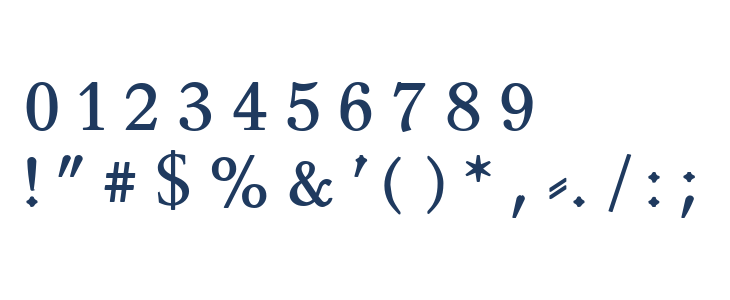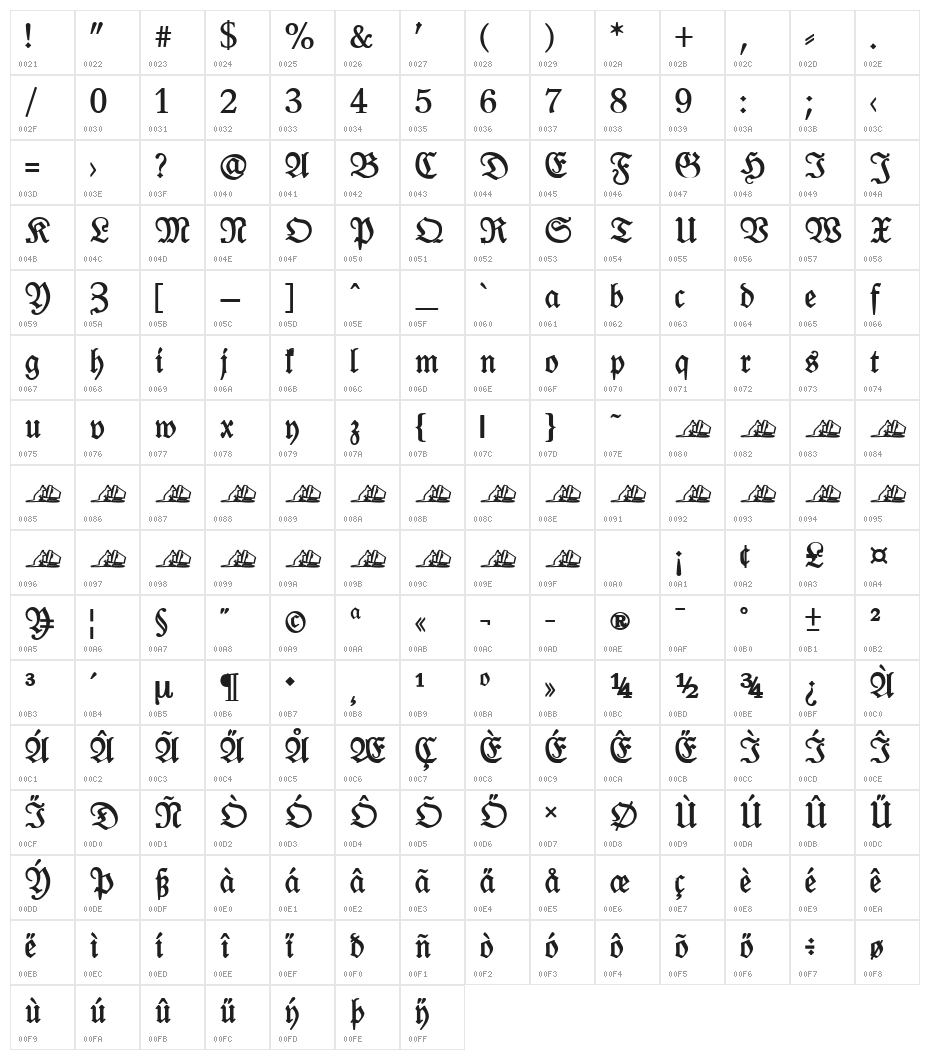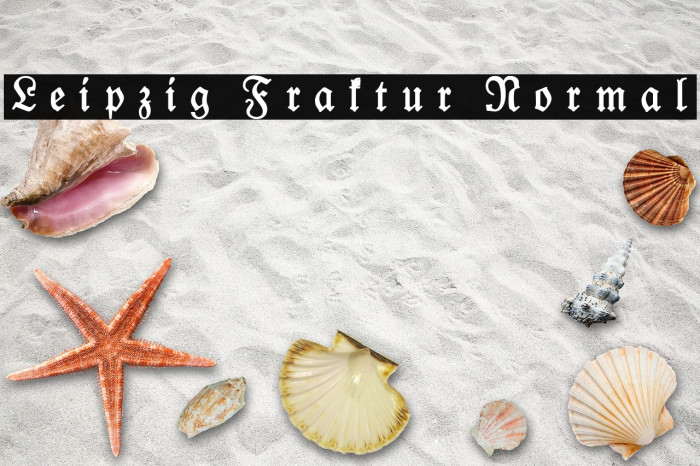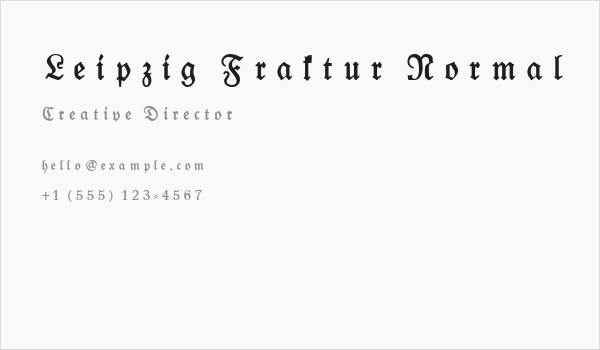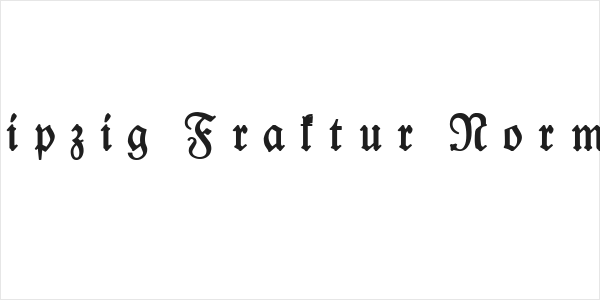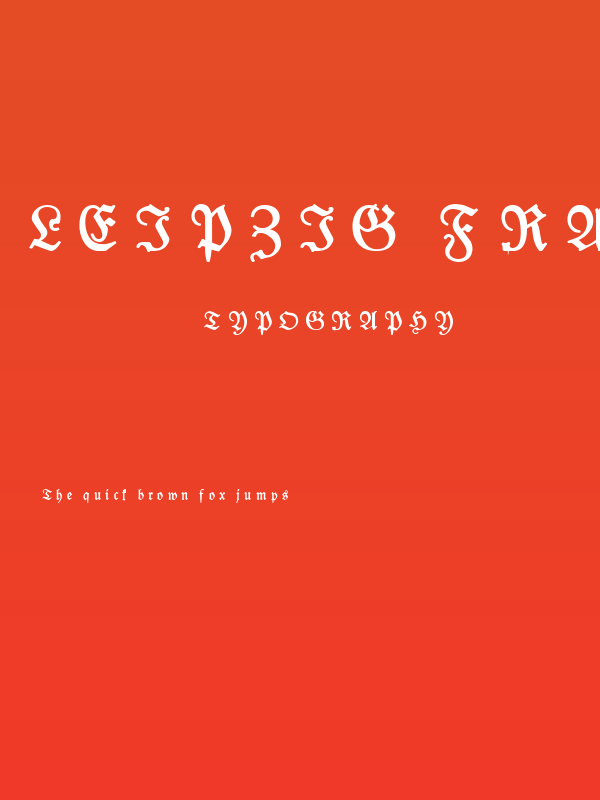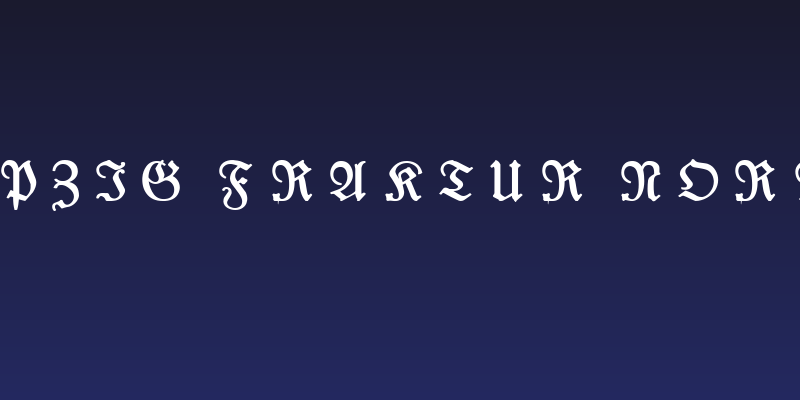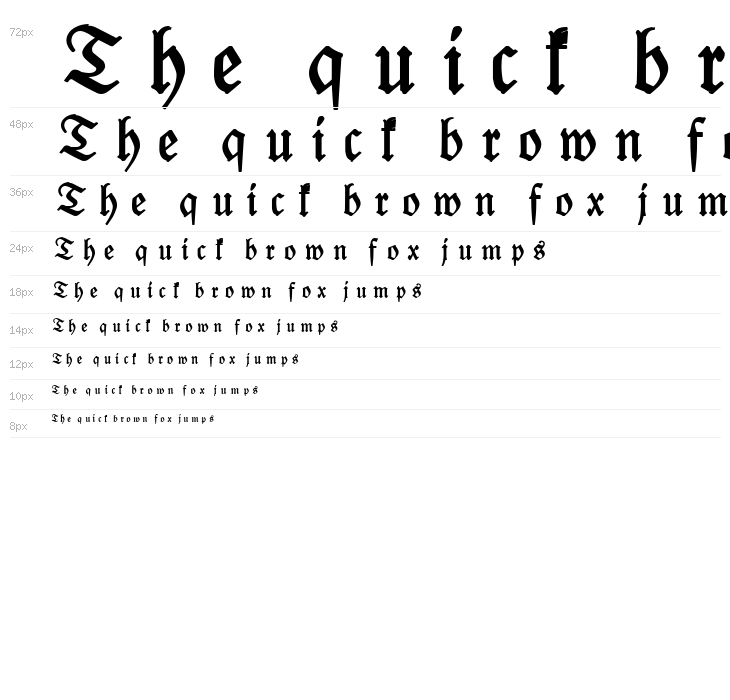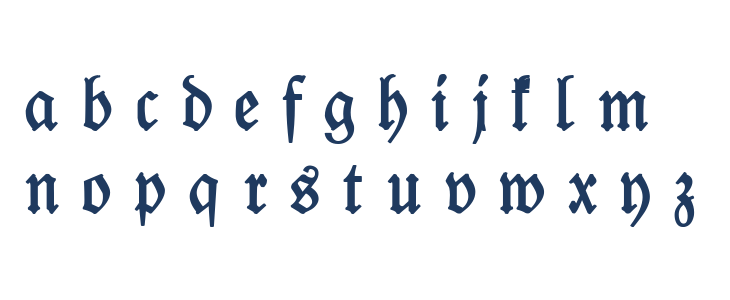
Leipzig Fraktur Normal Font
Leipzig Fraktur Normal Description
This font exudes a classic and historical charm, characterized by its intricate and ornate design. The uppercase letters feature elaborate flourishes and sharp angles, reminiscent of traditional Gothic script. The lowercase letters maintain a similar style, with a consistent stroke width that adds to the font's bold appearance. The numerals are clear and legible, while the special characters are designed to match the overall aesthetic, making them suitable for decorative purposes. The font's unique style makes it ideal for projects that require a touch of elegance and tradition.
Overall StyleVintage
Use CaseHeadlines, Logos, Decorative text
Proposed ProjectsIdeal for historical documents, wedding invitations, book covers, and branding that requires a vintage or traditional look.